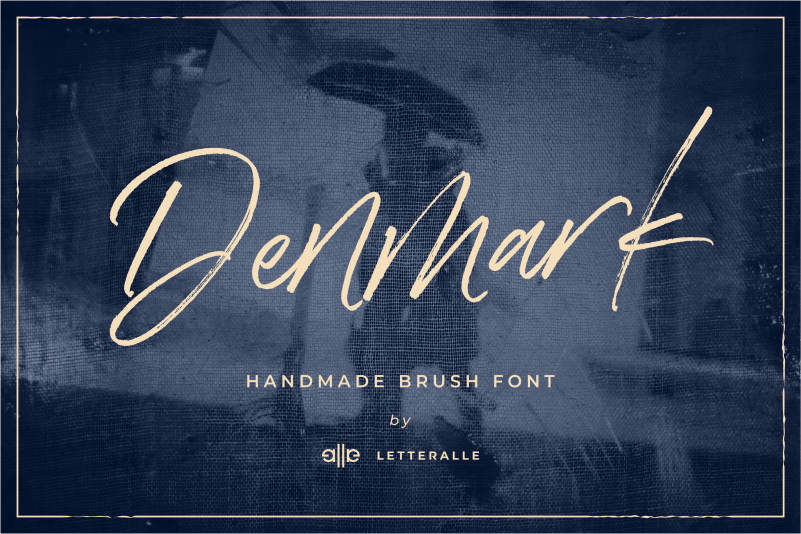
Denmark Handwritten Font
Denmark font is a brush font that is modern and elegant. The imperfectionis form brings a natural impression. Denmark is handmade which is equipped with an alternative glyps set (uppercase & lowercase), numeral, punctuation, and also multilingual supports. This font is suitable for your design needs such as product packaging, merchandise, social media design, T-shirts, Logotype, and more.